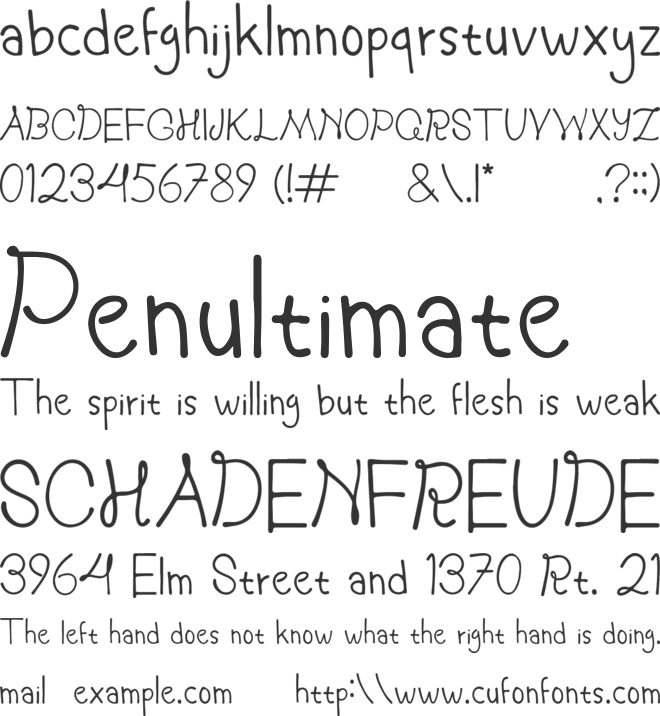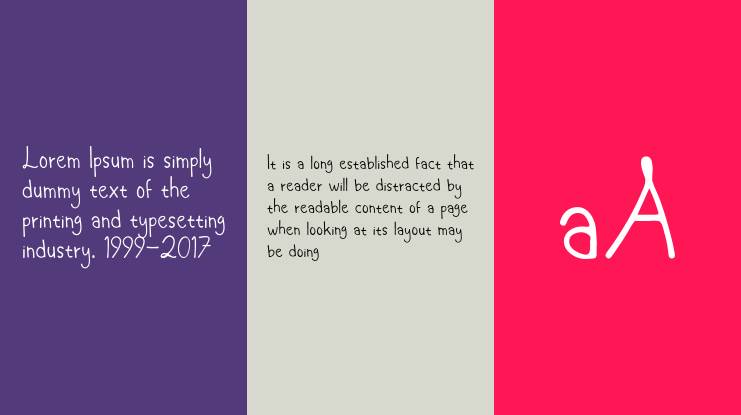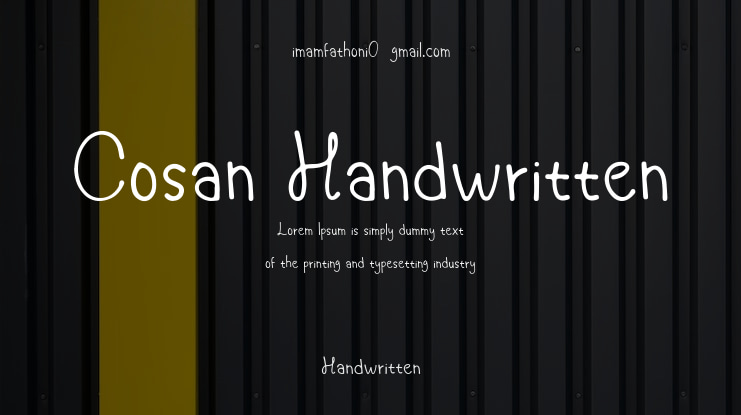
Cosan Handwritten Font
Cosan Handwritten is a warm and friendly handwritten font with a natural, casual flow and bouncy rounded letterforms. Its cheerful, relaxed style brings a personal, approachable touch to book titles, everyday journals, product packaging, and social media graphics. The simple, versatile characters work beautifully across a wide range of creative designs.